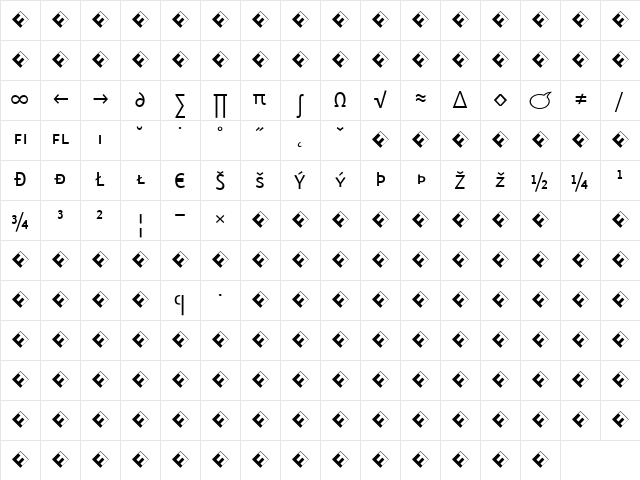
Eureka Sans Regular
Foundry: Peter Bilak, published by Fontshop International for the FontFont library
Design Context for Eureka Sans
Eureka Sans is a composed and adaptable typeface that performs quietly and consistently across a wide range of design contexts.
Who designed the Eureka Sans Regular font?
This font was published by Peter Bilak, published by Fontshop International for the FontFont library. Check the technical specs section for copyright and designer details.